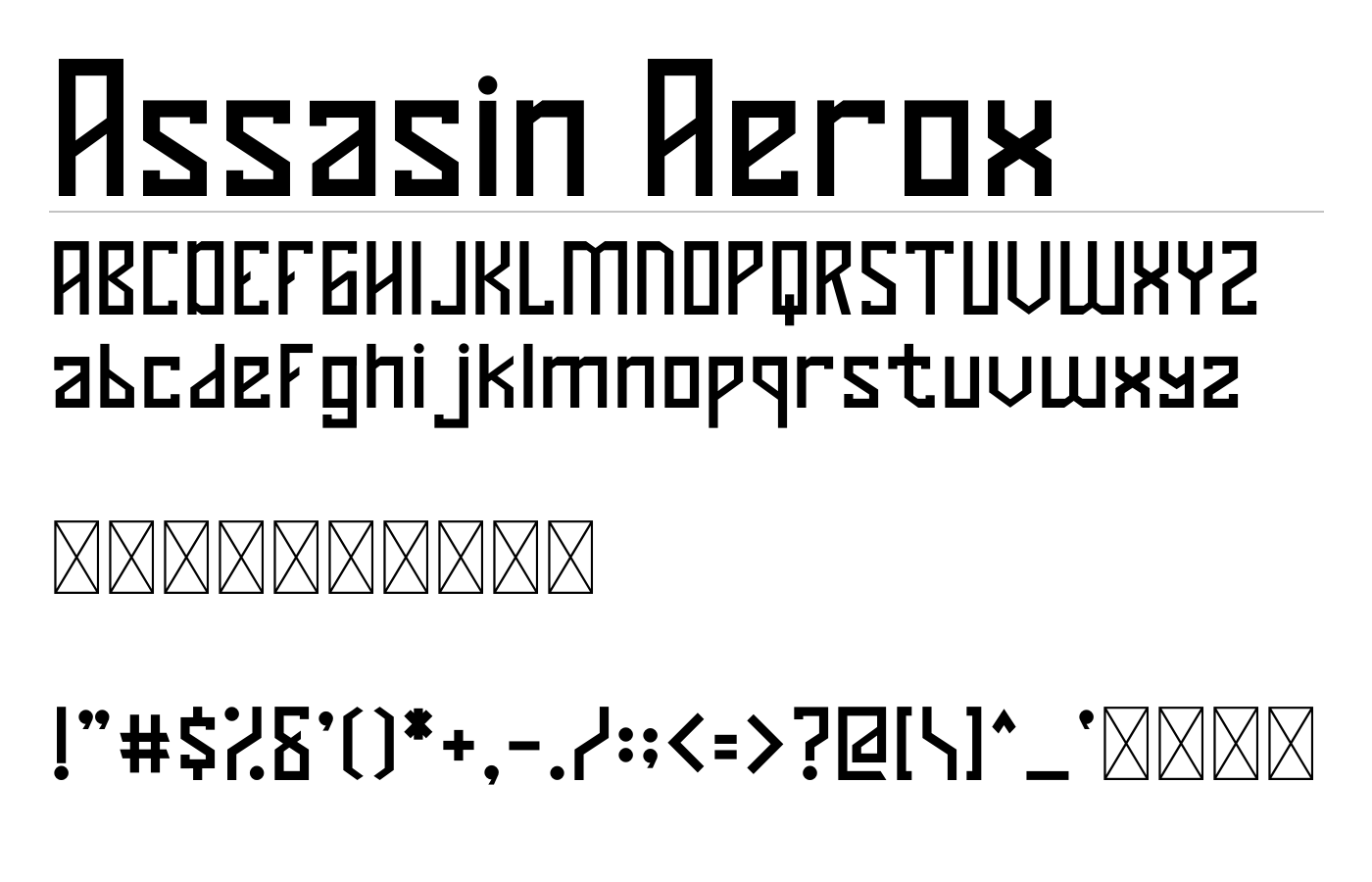
Assasin Aerox is a bold, geometric sans serif font with a narrow, condensed structure and sharp, angular letterforms that create a futuristic and edgy feel. Its high x-height and uniform stroke weight lend it a strong presence, making it ideal for tech, gaming, and modern branding projects. This font works best for striking headlines, logos, and digital interfaces where a distinctive, modern style is needed to command attention.
Assasin Aerox Font
About Assasin Aerox Font